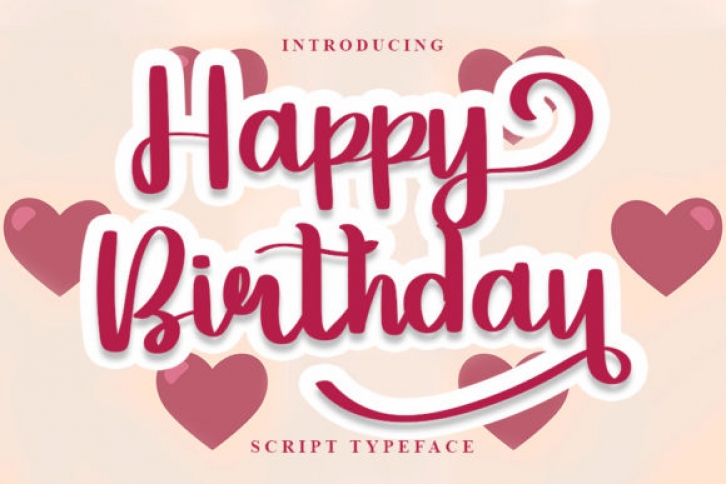
Happy Birthday is a delicate and elegant handwritten font. Its distinct and well balanced letters make this font a masterpiece. Fall in love with its incredibly versatile style and use it to create spectacular designs!